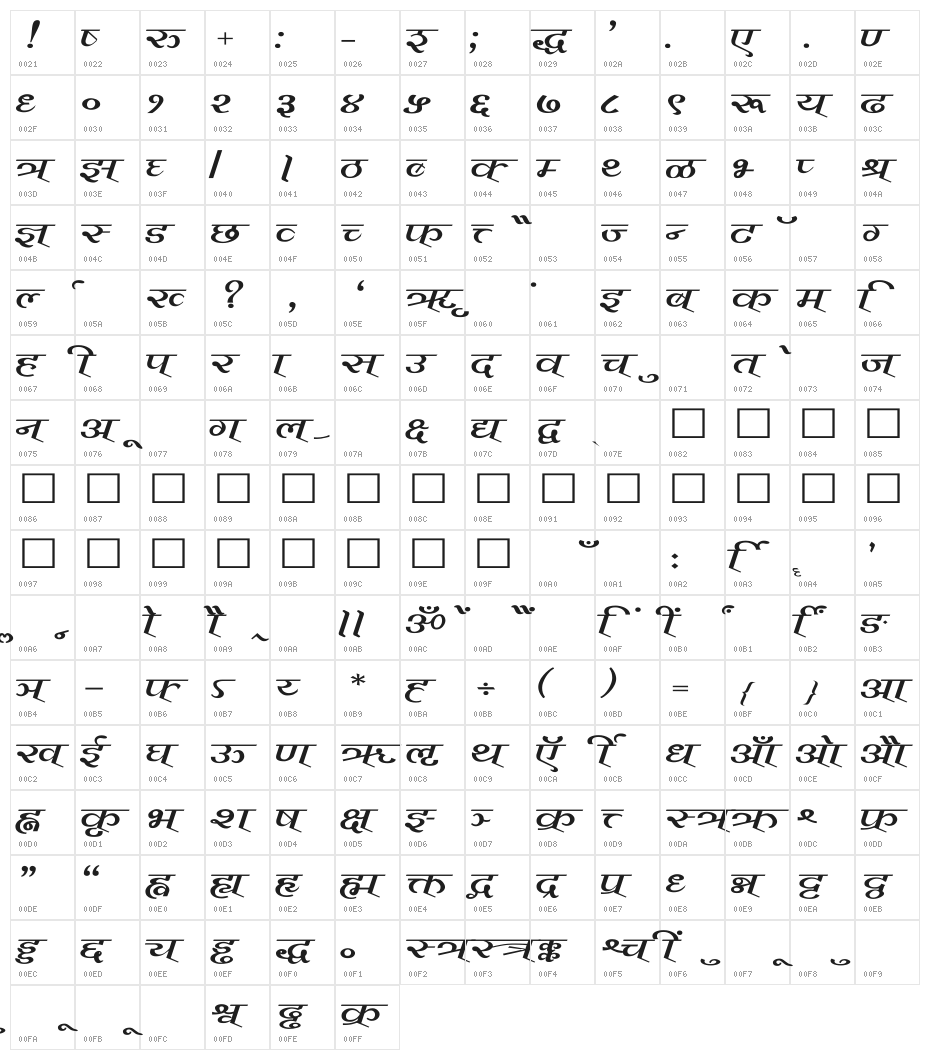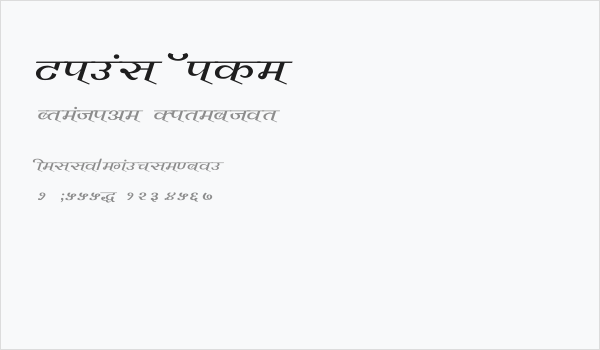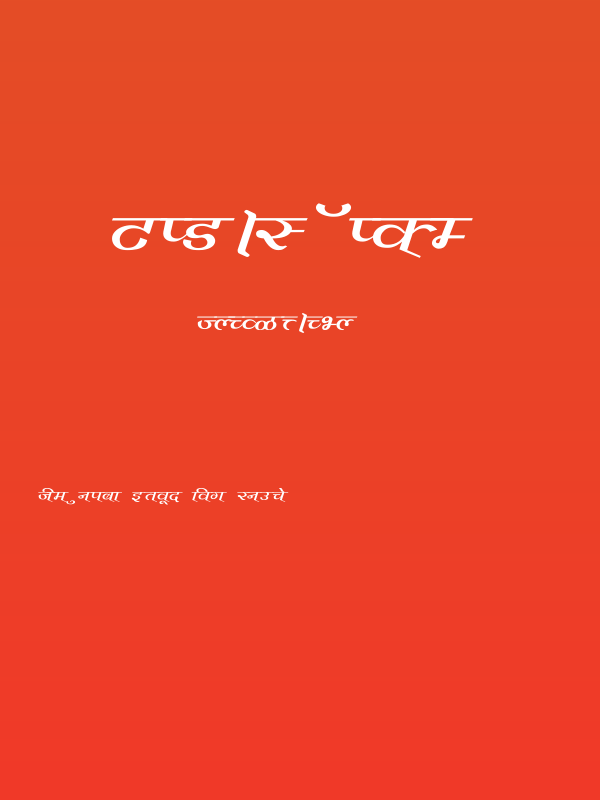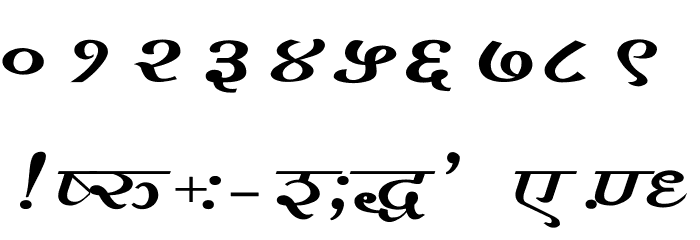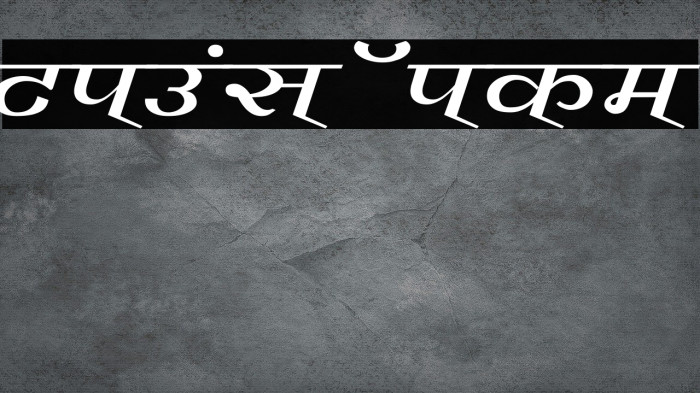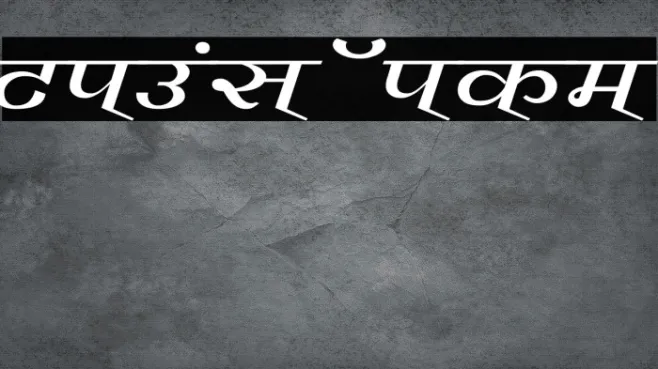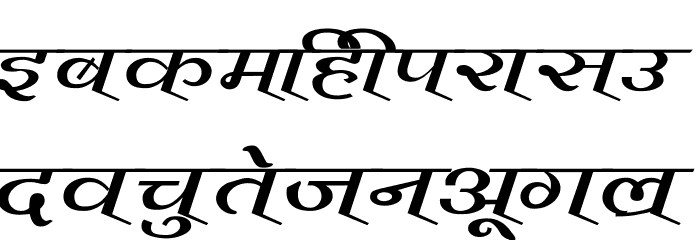
Vimal Wide Font
Vimal Wide Description
This font features a distinctive Devanagari script style, characterized by its elegant and flowing letterforms. The characters exhibit a slight slant, adding a dynamic and graceful appearance. The strokes are moderately thick, providing a balanced contrast that enhances readability while maintaining an artistic flair. The font includes a full set of Devanagari characters, numerals, and a selection of punctuation marks. Its design is both traditional and modern, making it suitable for a variety of applications where a touch of cultural authenticity is desired.
| Overall Style | Traditional |
| Use Case | Headlines, Body text, Cultural projects |
| Proposed Projects | Ideal for cultural publications, educational materials, and artistic projects requiring Devanagari script. |